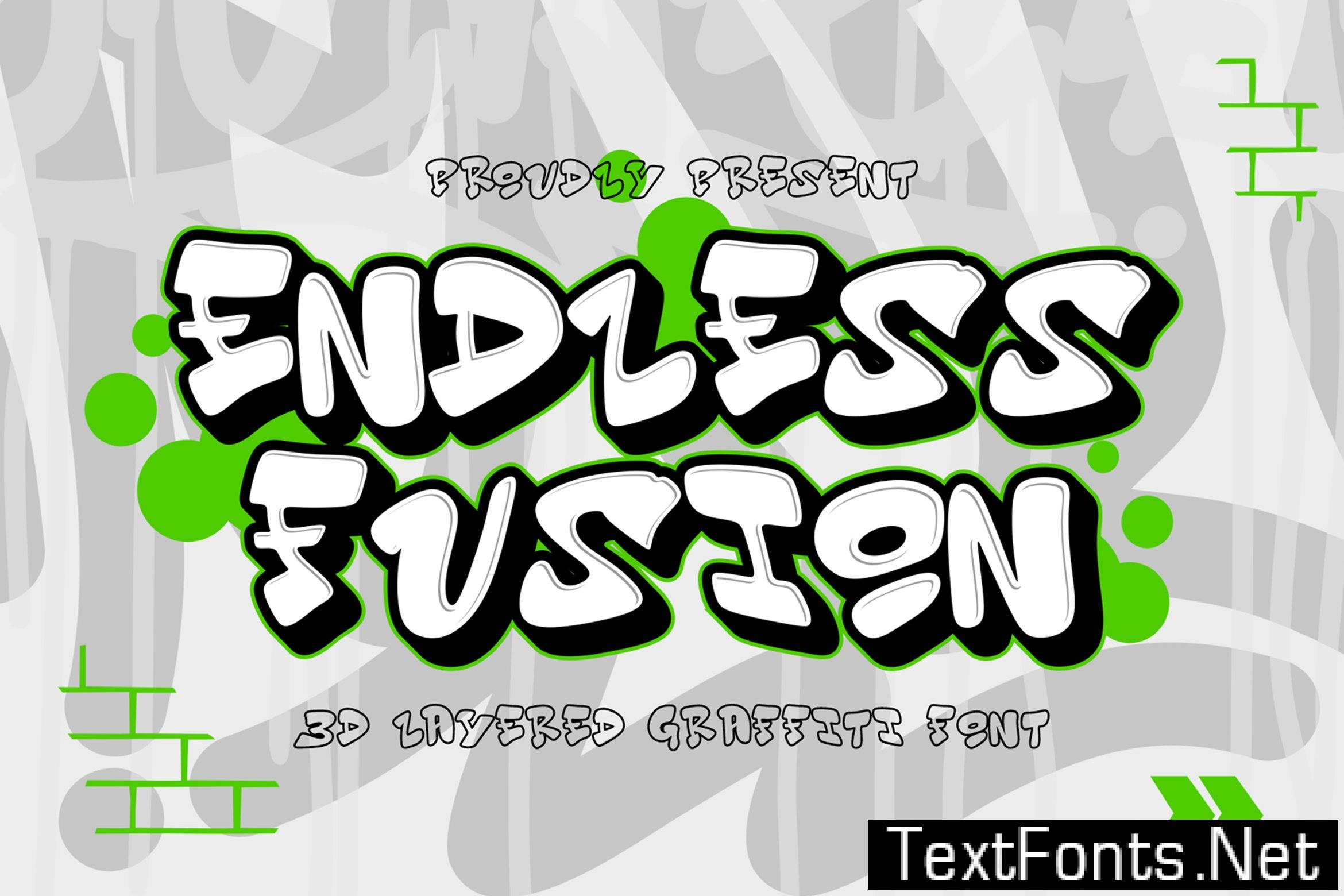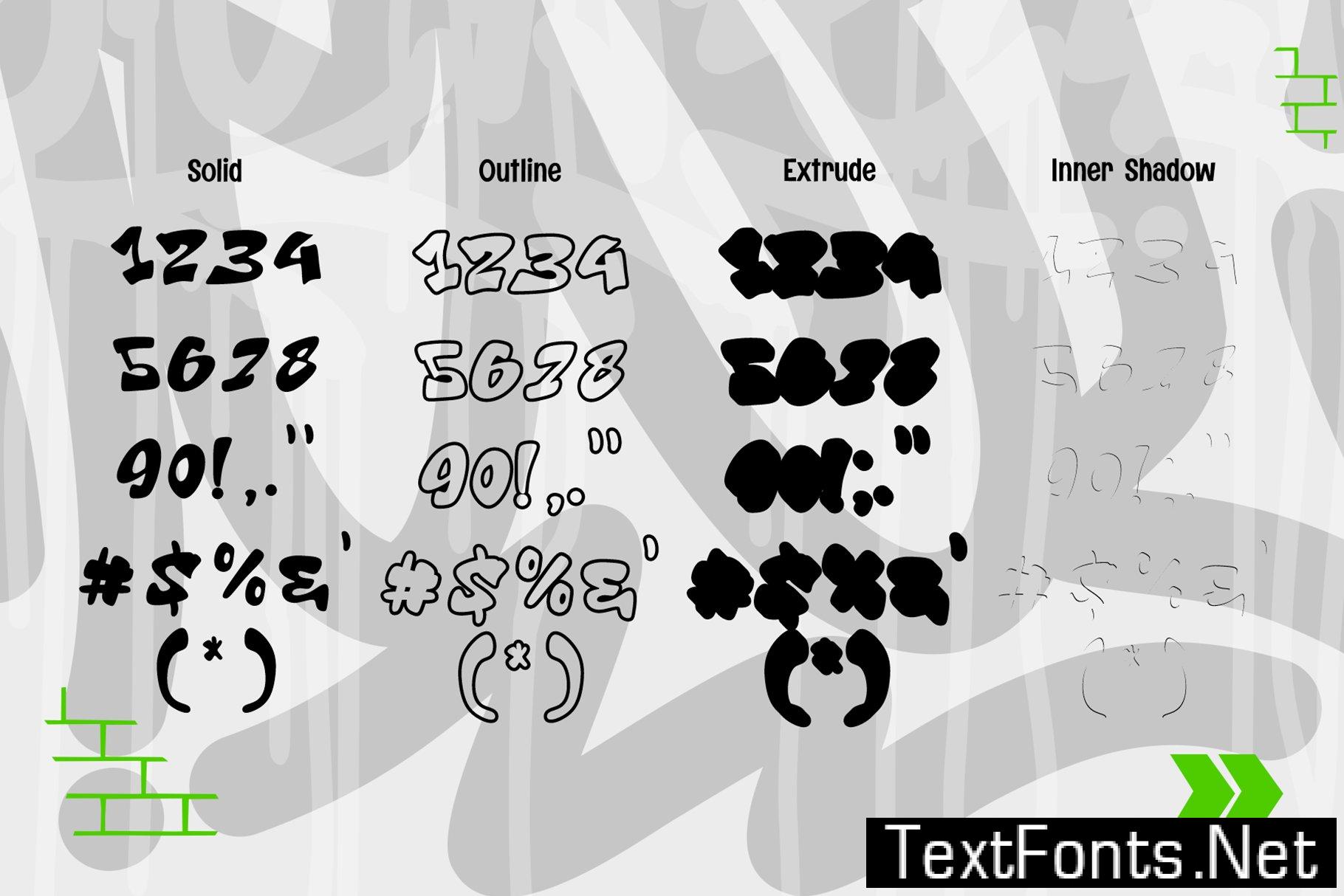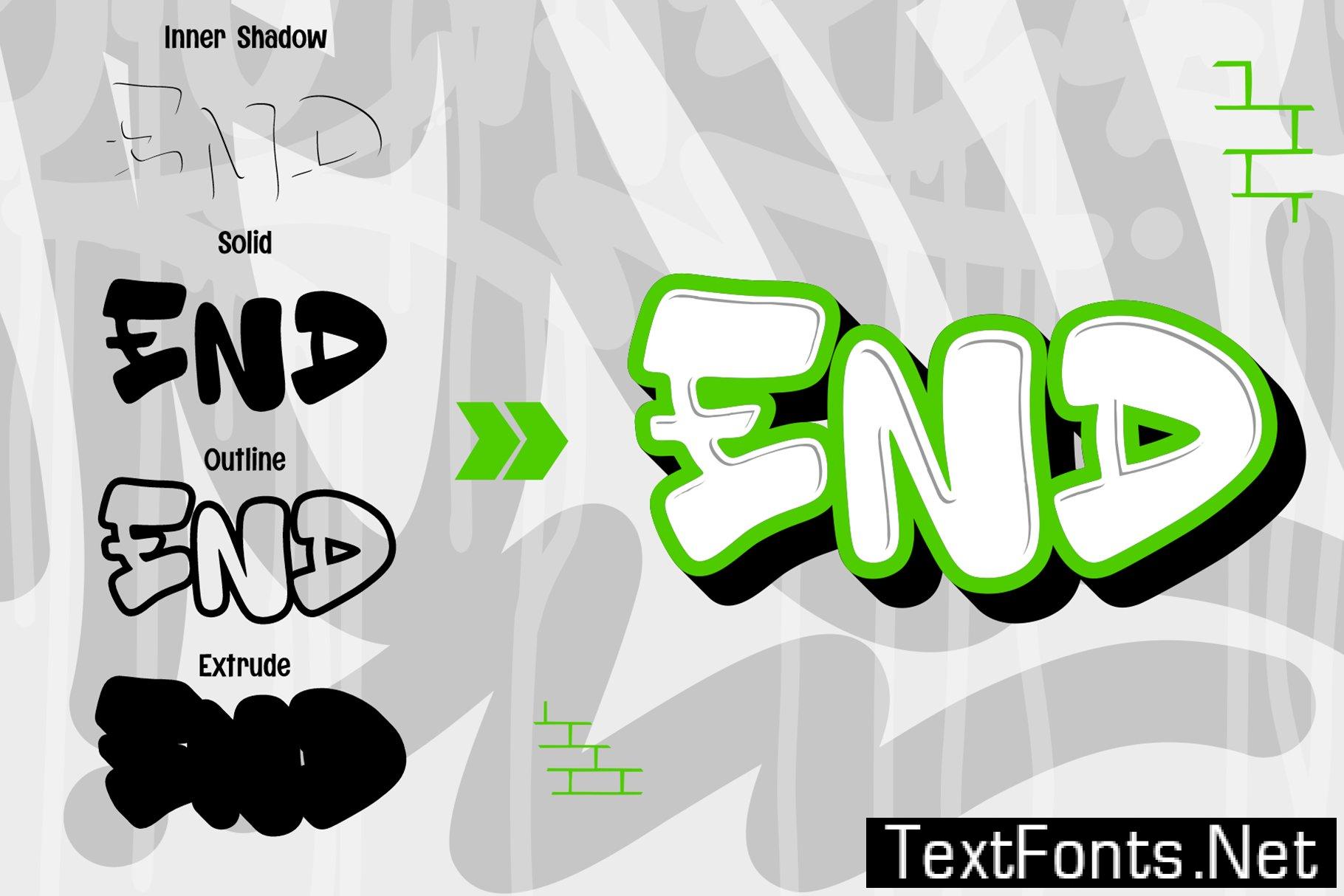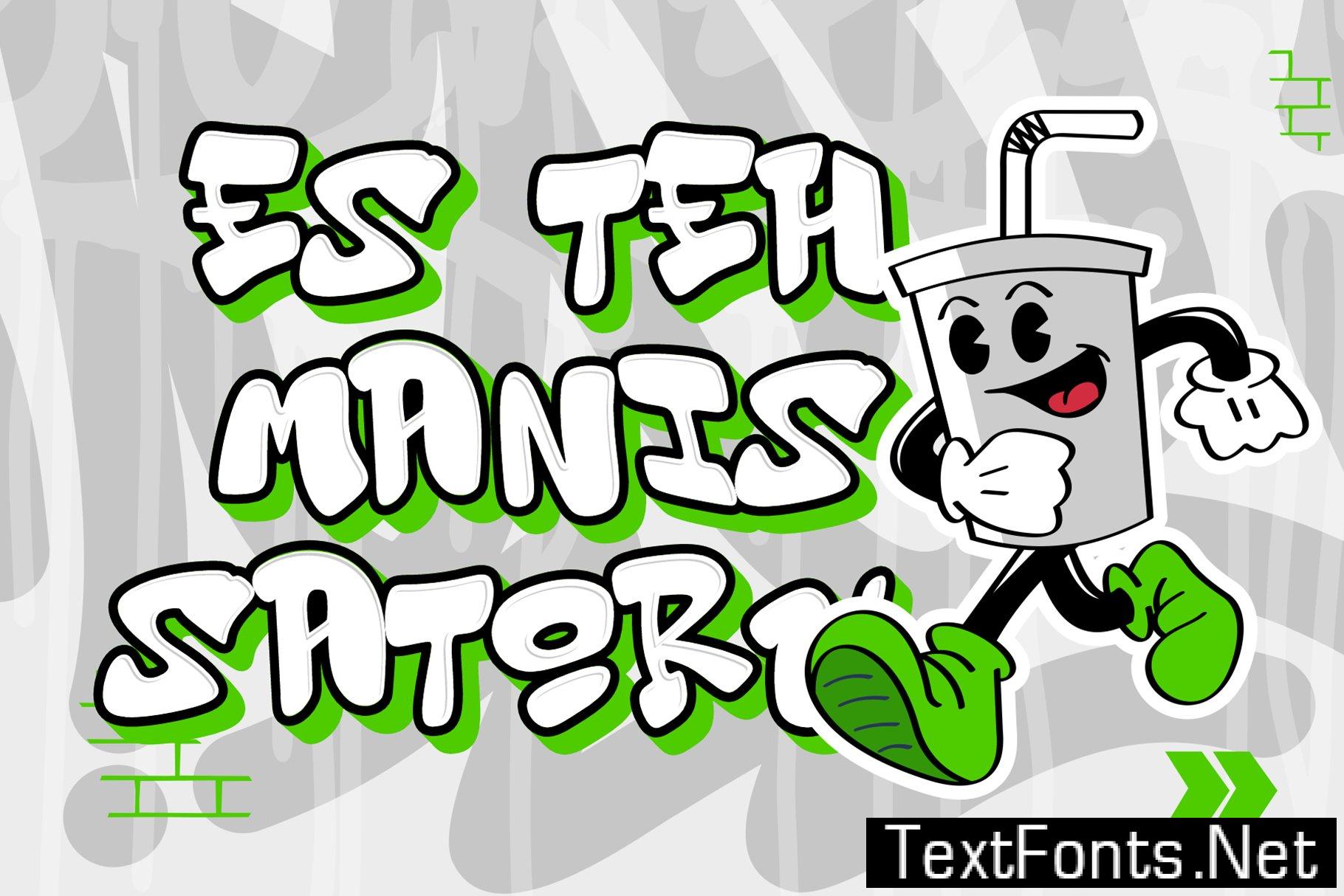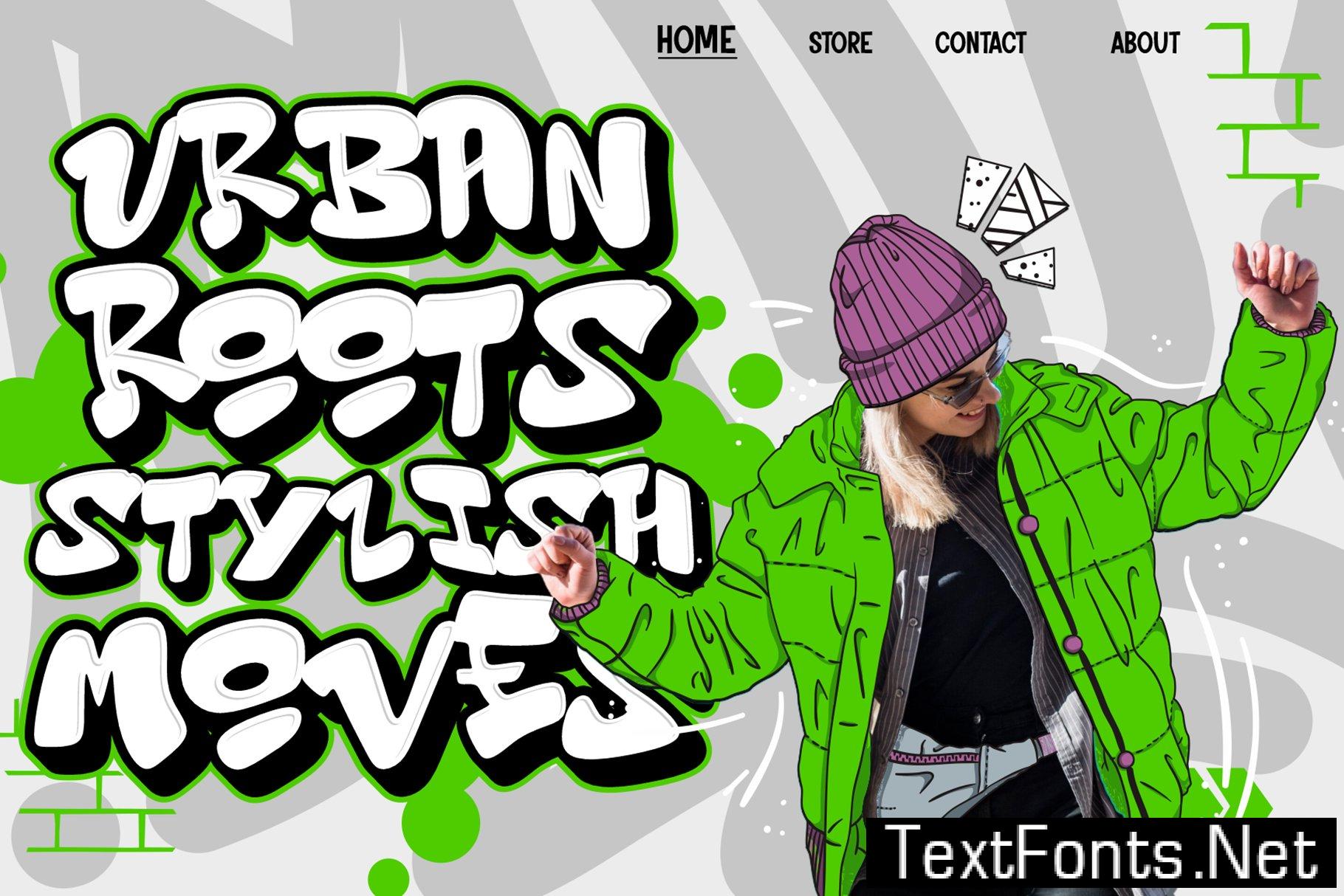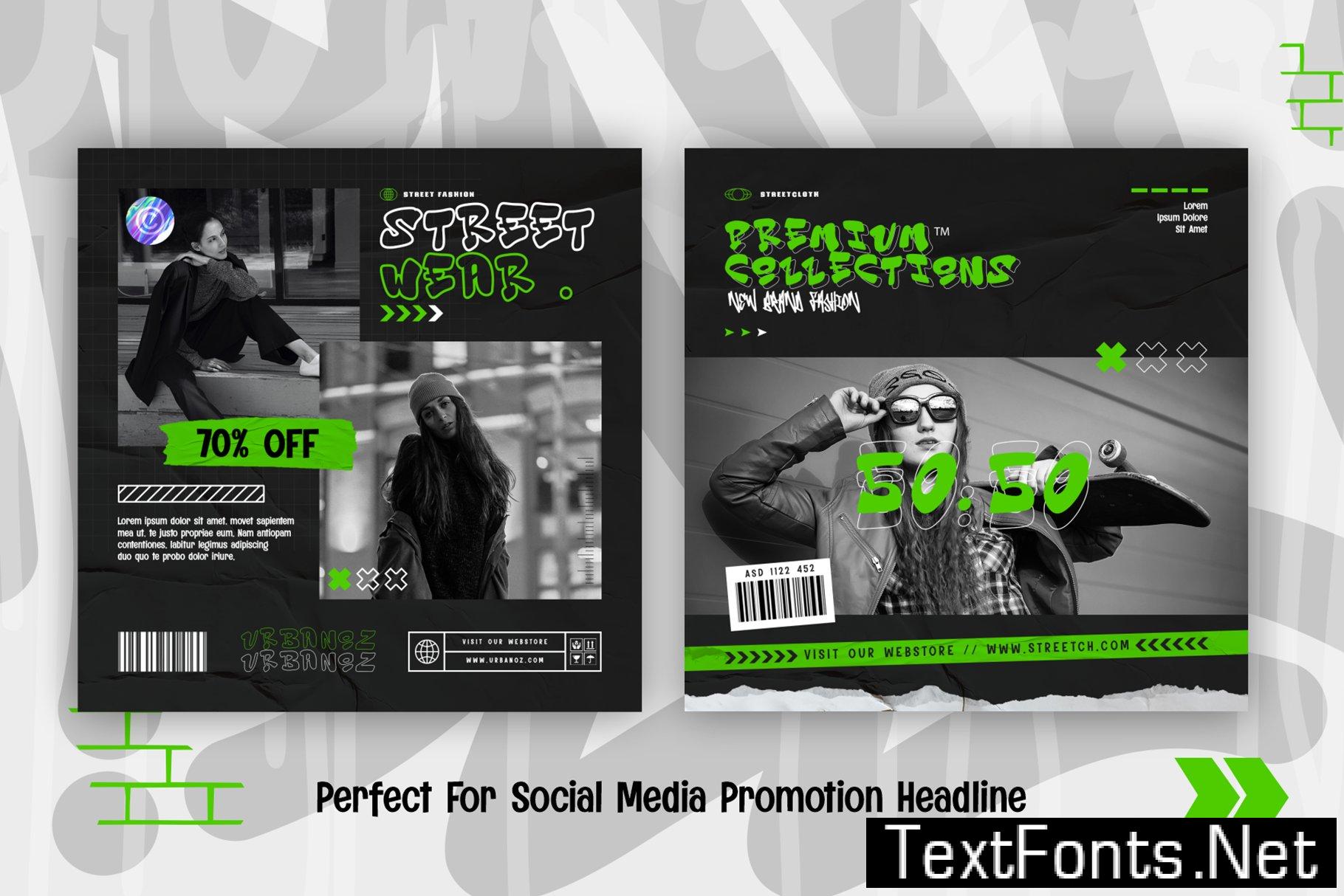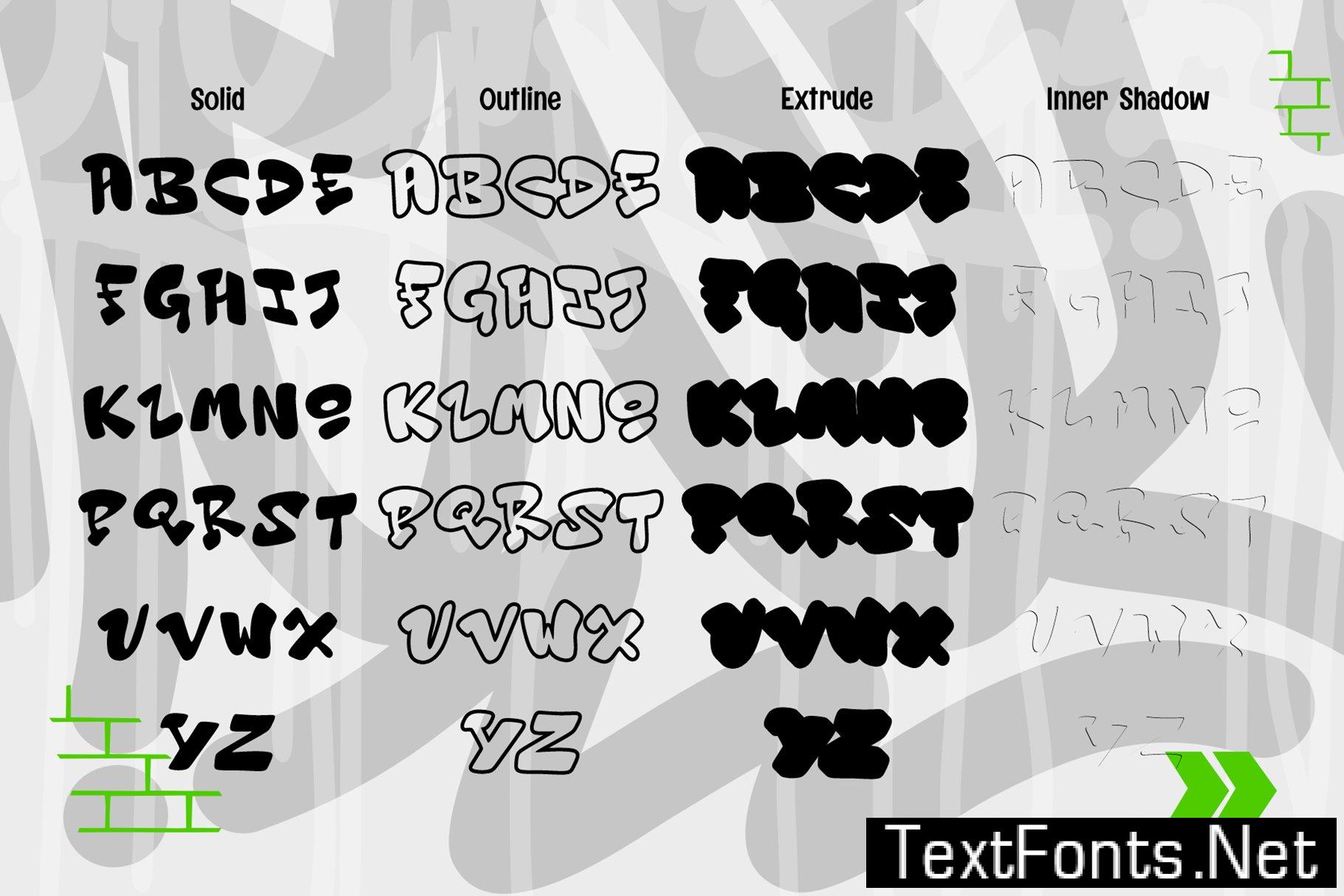
Endless Fusion – 3D Layered Graffiti Font 8745QJQ
**Endless Fusion** is a best-selling 3D layered graffiti font that revolutionizes the art of typography with its bold and dynamic design. This font combines the raw energy of graffiti with a modern 3D twist, making it a standout choice for any project that requires a powerful and unique visual presence.
🌀 3D Layered Impact: Endless Fusion’s innovative 3D layered design brings depth and dimension to your text, creating a striking visual effect that leaps off the page. This feature makes it ideal for posters, street art, digital media, and any design that aims to make a bold statement.
🎨 Versatile Creativity: With its multiple layers, Endless Fusion offers endless possibilities for customization. Mix and match layers to create various looks, from vibrant and colorful to dark and edgy. This versatility makes it perfect for a wide range of design projects.
🔥 Graffiti Boldness: Inspired by graffiti art’s raw and rebellious spirit, Endless Fusion captures the essence of urban creativity. Its bold and expressive strokes add an authentic graffiti vibe to your designs, making them stand out in any setting.
🌟 Eye-Catching Design: Endless Fusion’s unique 3D effect ensures your text grabs attention and holds it. Whether used for headlines, logos, or social media graphics, this font commands attention and leaves a lasting impression.
🚀 Dynamic Presence: The layered design of Endless Fusion allows for dynamic compositions that can transform ordinary text into extraordinary visuals. It’s the perfect font for projects that require a touch of artistic flair and a strong visual impact.
Unleash the full potential of your creativity with Endless Fusion, the 3D layered graffiti font that combines bold graffiti style with modern 3D effects. This best-selling font is your ultimate tool for creating designs that are as dynamic and captivating as they are unique.